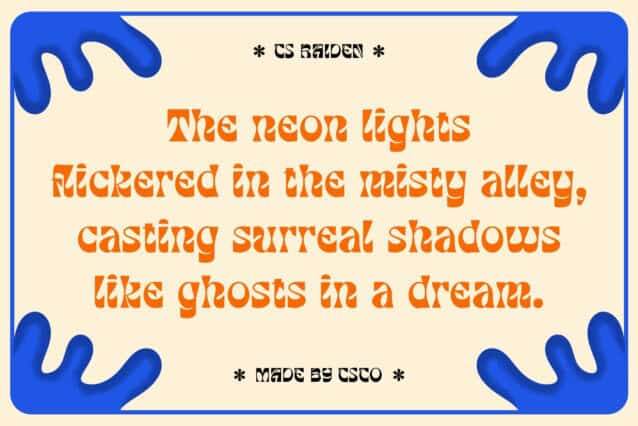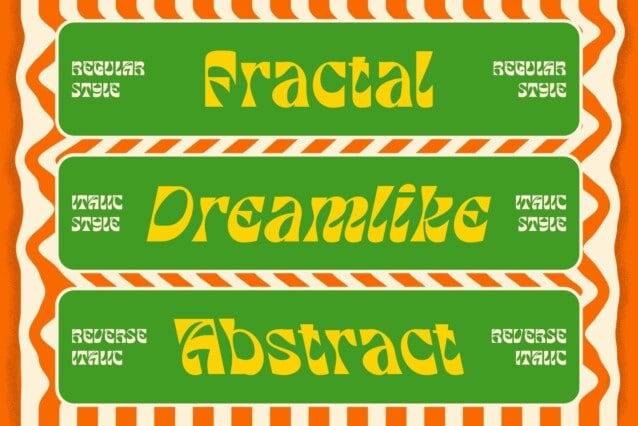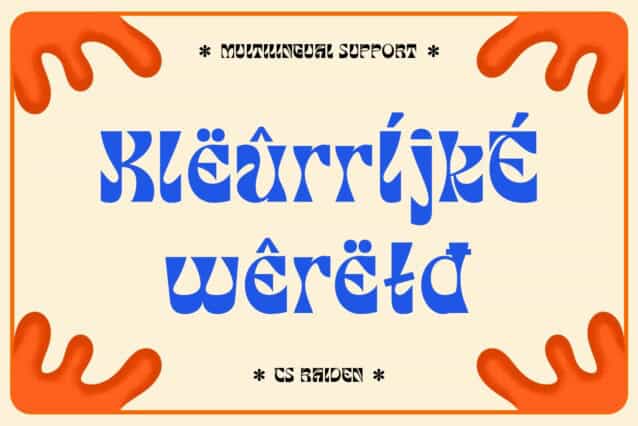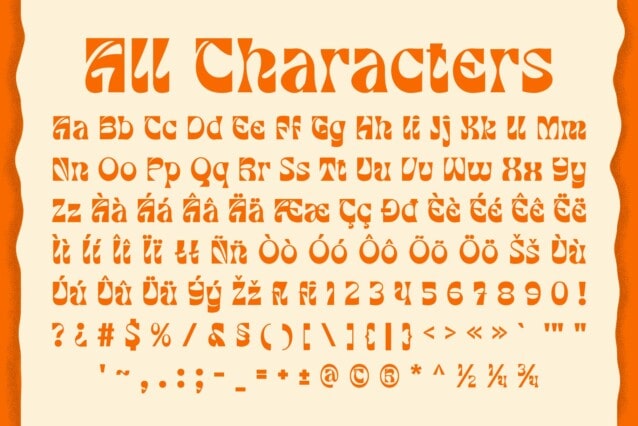
CS Raiden Font
CS Raiden Font is a reverse contrast display font, where horizontal strokes are thicker than vertical ones, creating a bold, eye-catching, and experimental aesthetic. This unique contrast challenges traditional typography norms, making it ideal for designs that demand attention and originality. Whether used for posters, logos, or branding, CS Raiden delivers a memorable and impactful presence.